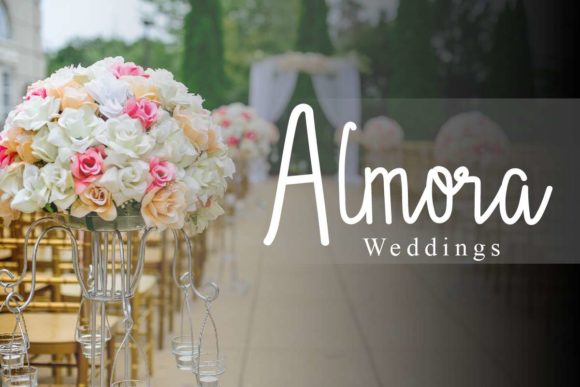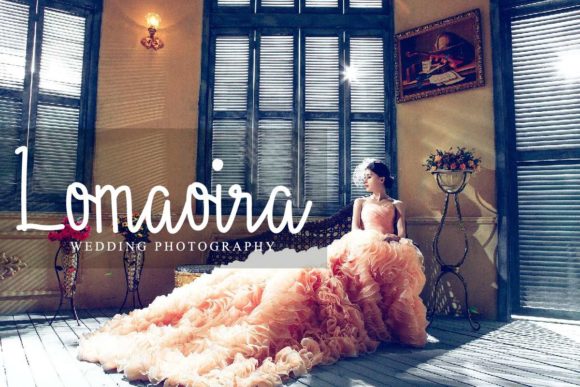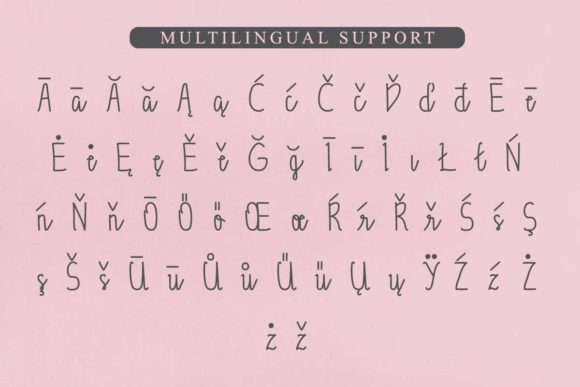
Introduction to Gemintang Font
Have you ever stared at a blank canvas, waiting for the perfect font to bring your creative project to life? That’s exactly what happened to me last week, and then I stumbled upon the Gemintang Font. It’s a gorgeously light and playful script with a unique twist that instantly caught my attention.
As designers, we’re always on the lookout for that special something to make our projects stand out. The Gemintang Font is a high-quality design resource that’s sure to impress. Not only is it available for free download, but its transparent background makes it perfect for adding a touch of elegance to any design.
Whether you’re working on a branding project, a social media campaign, or simply a creative endeavor, the Gemintang Font is a valuable addition to your design arsenal. Let’s dive into the world of this stunning script and discover how it can elevate your next design project.
Key Features of Gemintang Font
- High-quality font suitable for various creative projects
- Transparent background, allowing for seamless integration into any design
- Perfect for use in graphic design, digital art, or any other creative project requiring a unique touch
- Resolution: Scalable to any size, ensuring crisp and clear display
- Unique design elements that set it apart from other fonts, making it an excellent choice for designers looking for something distinctive
Honest Review: Gemintang Font
One of the standout features of Gemintang Font is its high quality and versatility. It works well for a wide range of creative projects, from logos to signage, and even has a transparent background option, which is perfect for designing icons or graphics that need to be layered.
Here are some of the things that work well with Gemintang Font: ✨ High-quality design, ✨ Versatile and adaptable, ✨ Great for logos and branding, ✨ Perfect for creative projects, ✨ Transparent background option.
However, there are a few limitations to consider: ⚠️ Limited font styles, ⚠️ May not be suitable for formal or professional projects.
Getting the Most Out of Gemintang Font
To get the most out of Gemintang Font, use it for creative projects that require a unique and eye-catching look. This font is perfect for logos, posters, and other designs where a high-quality, transparent background is desired.
Gemintang Font is commonly used for:
- Infographics and data visualizations
Does the Gemintang Font include a transparent background?
Yes, the Gemintang Font includes a transparent background, making it easy to use in design projects that require a high level of customization. The transparent background allows designers to create unique and creative designs, such as layered compositions or intricate typography, without worrying about background clutter.